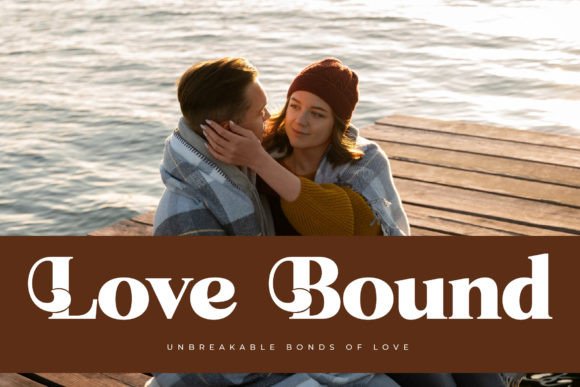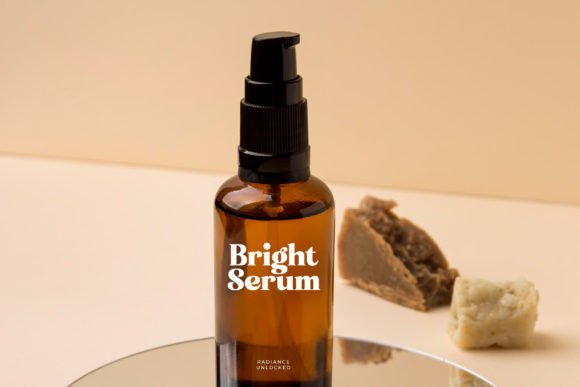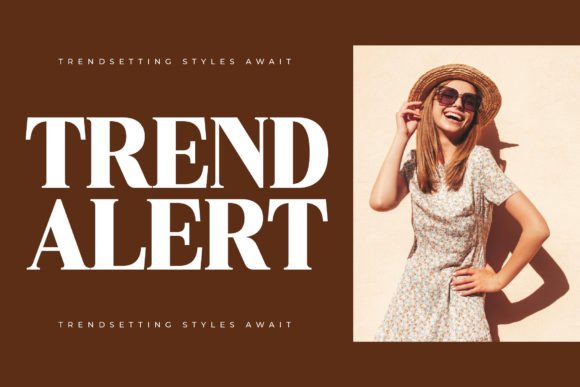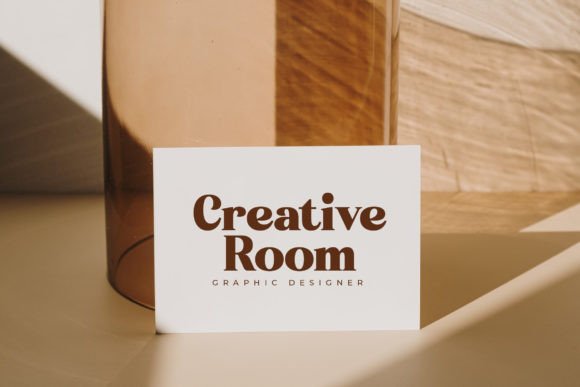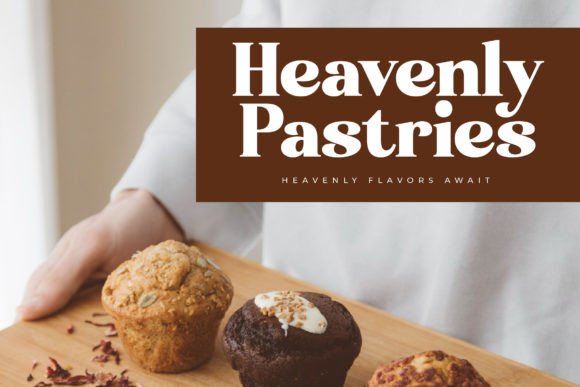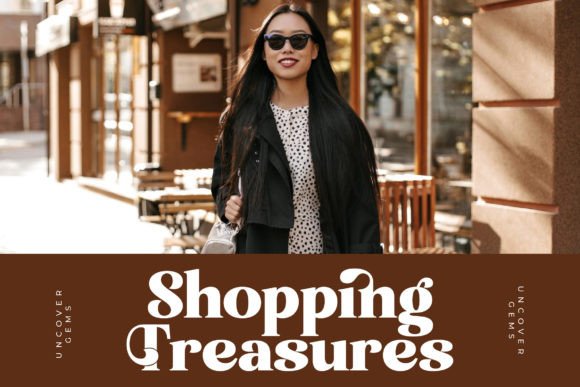
Unveiling the Elegance of Enigma Mistik Font: A Modern Retro Serif Luxury
In the realm of typography, fonts play a pivotal role in defining the aesthetic and tone of any design project. Among the myriad of fonts available, the Enigma Mistik Font stands out as a beacon of luxury and sophistication. This modern retro serif font, crafted by the renowned Letterena, has been making waves in the design community for its unique blend of classic elegance and contemporary flair.
What is Enigma Mistik Font?
Enigma Mistik Font is a luxury serif font that embodies the essence of modern retro style. Its design is characterized by intricate serifs, elegant lines, and a sophisticated feel that instantly elevates any project it’s used in. Whether you’re working on logos, branding projects, homeware designs, product packaging, or any other venture that demands a touch of luxury, Enigma Mistik is the perfect choice.
Key Features of Enigma Mistik Font
- Versatility: One of the standout features of Enigma Mistik Font is its versatility. It can be used across a wide range of projects, including but not limited to logos, branding projects, homeware designs, product packaging, mugs, quotes, posters, shopping bags, t-shirts, book covers, name cards, invitation cards, greeting cards, labels, photography, watermarks, and special events.
- Luxury Appeal: The font exudes a sense of luxury and high-end quality, making it ideal for projects that require a sophisticated and elegant look.
- Modern Retro Style: Enigma Mistik seamlessly blends modern design principles with a retro aesthetic, creating a unique and captivating visual experience.
- Easy to Read: Despite its intricate design, the font maintains excellent readability, ensuring that your message is conveyed clearly and effectively.
Applications of Enigma Mistik Font
The applications of Enigma Mistik Font are vast and varied. Here are some of the most notable uses:
- Branding and Logos: Create a lasting impression with a logo that embodies luxury and sophistication.
- Packaging Design: Elevate your product packaging with a font that speaks of high quality and elegance.
- Marketing Materials: Use Enigma Mistik in your brochures, flyers, and posters to add a touch of class and professionalism.
- Merchandise: From t-shirts to mugs, add a luxurious feel to your merchandise with this versatile font.
- Stationery: Create exquisite stationery, including greeting cards, invitation cards, and letterheads, that reflect a sense of luxury.
Why Choose Enigma Mistik Font?
Choosing Enigma Mistik Font for your design projects comes with numerous benefits:
- Unique Design: Stand out from the crowd with a font that is both unique and captivating.
- High-Quality: Experience high-quality typography that enhances the visual appeal of your projects.
Enigma Mistik Font by Letterena is a game-changer for designers and crafters looking to infuse their projects with a sense of luxury and modern retro style. Its versatility, elegance, and high-quality design make it an excellent choice for a wide range of applications. Whether you’re working on a branding project, packaging design, or any other venture that demands sophistication, Enigma Mistik Font is sure to exceed your expectations. Embrace the elegance and uniqueness of Enigma Mistik to elevate your designs to new heights of luxury and beauty.